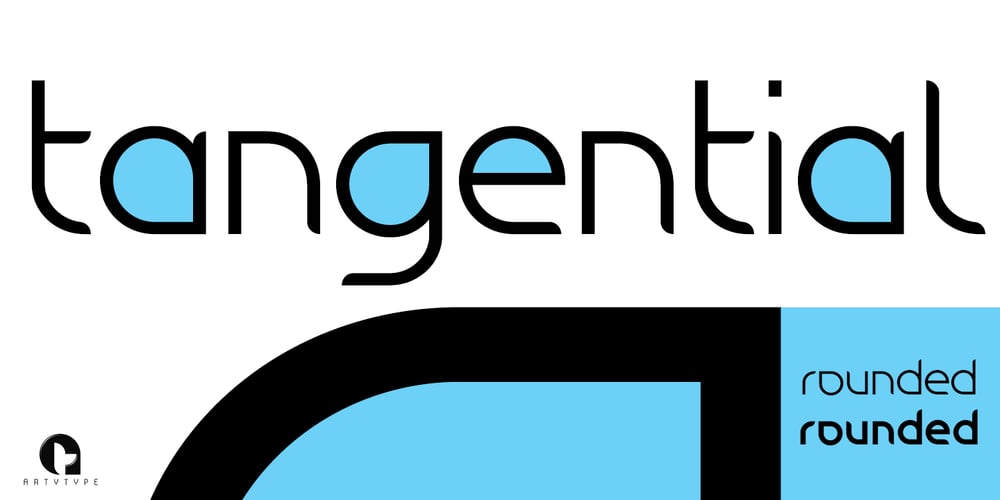
Tangential Rounded
Tangential Rounded font
Tangential Rounded Font Family was designed by James Marsh and published by ArtyType. Tangential Rounded contains 2 styles and family package options. This variation of Tangential (see also the Standard & Semi Serif variants) continues with the angles that give the typeface its name; however, the square terminals are half-rounded to create a softer and slightly more fluid styling. The Tangential style I envisaged for the family is complemented by the prominent use of negative space throughout, most apparent on the drop-shaped ‘o,’ which is a key feature of the typeface and a letterform I’m particularly pleased with. Available in 2 weights, Regular & Bold, in both OpenType OTF & TrueType TTF formats.